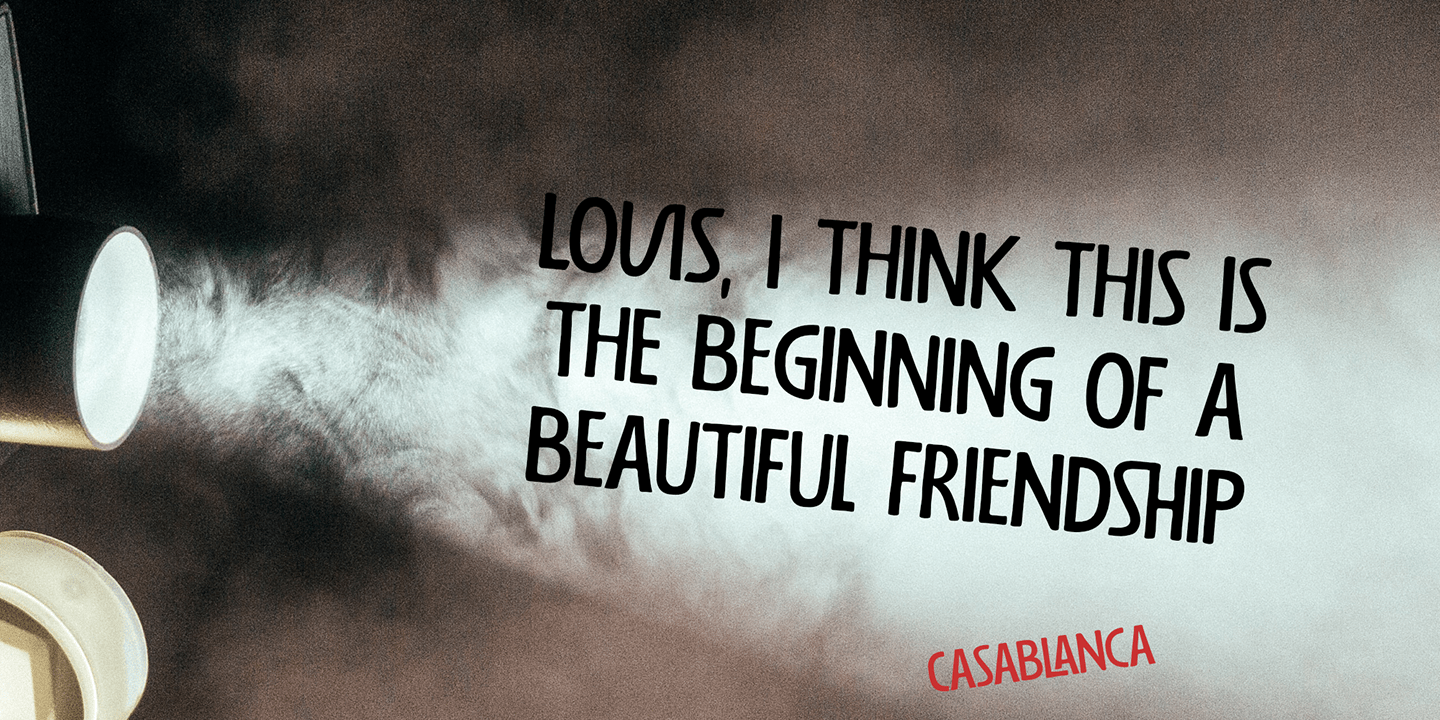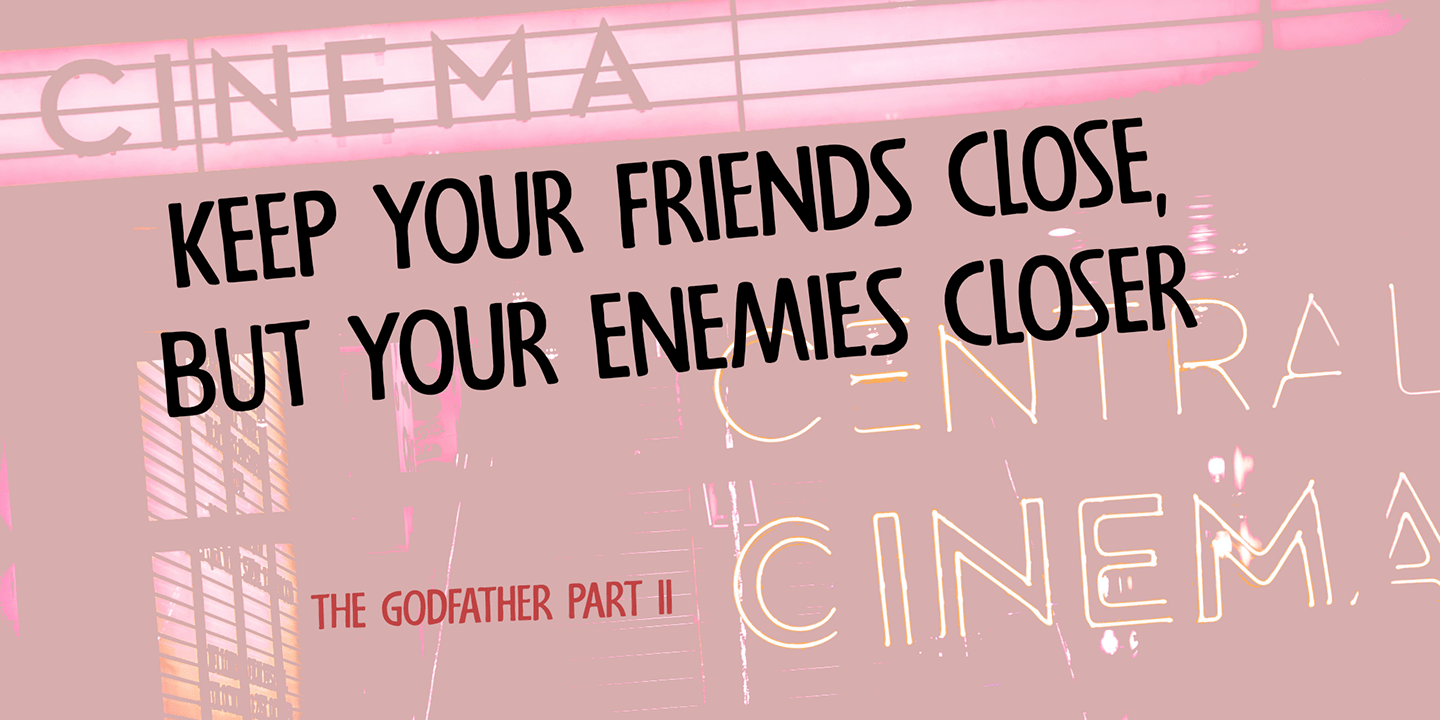
About Last Episode
I was watching a nice series the other day, which I quite enjoyed, but then I realised that the episode I was watching was in fact the last one. That kinda upset me, as I was just getting into the story. Last Episode is a handmade, all caps font – great…